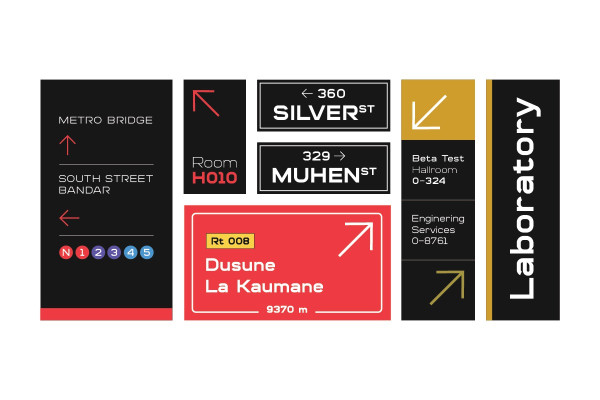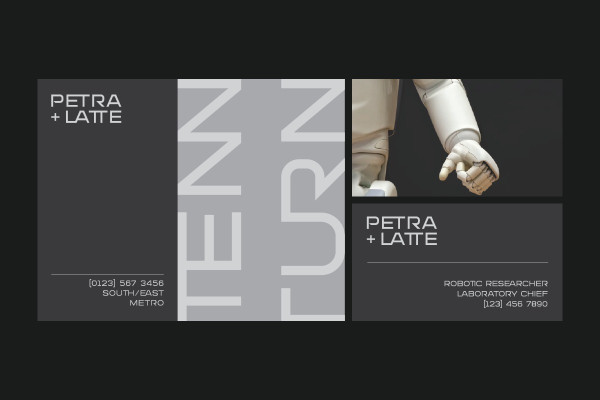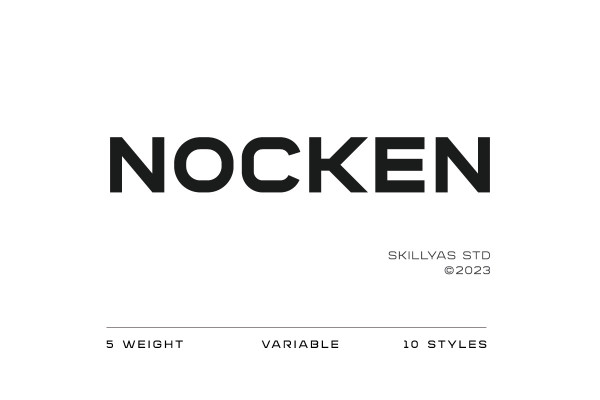
Nocken Font
Nocken Font is a sleek and modern sans-serif font that exudes elegance and simplicity. Nocken has 5 weights from light to bold with 10 styles, which is perfect for creating contemporary designs that demand a refined aesthetic. Its versatility allows it to be used for a wide range of projects, from branding and logo design to web and print materials.